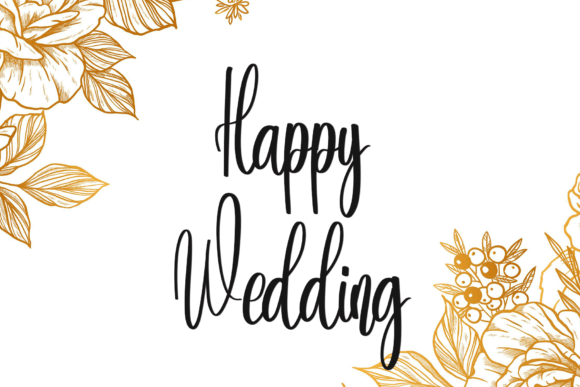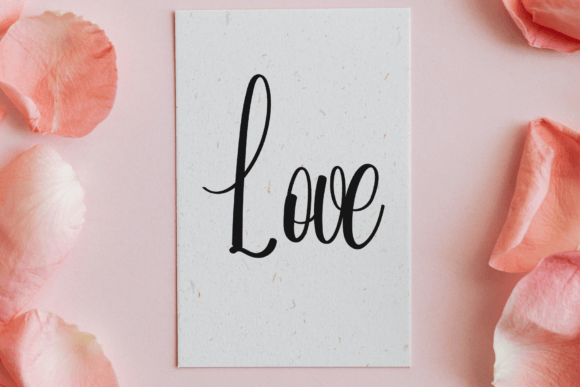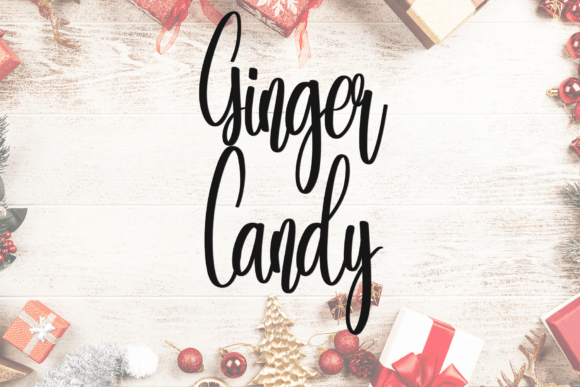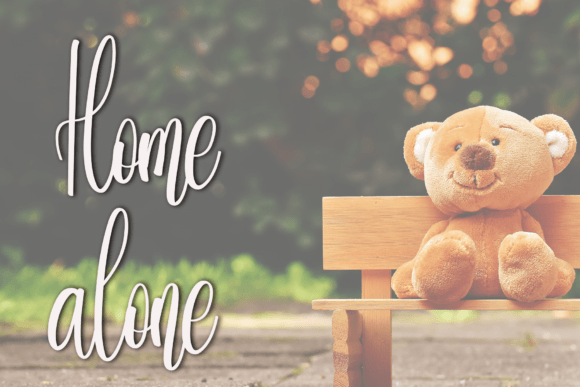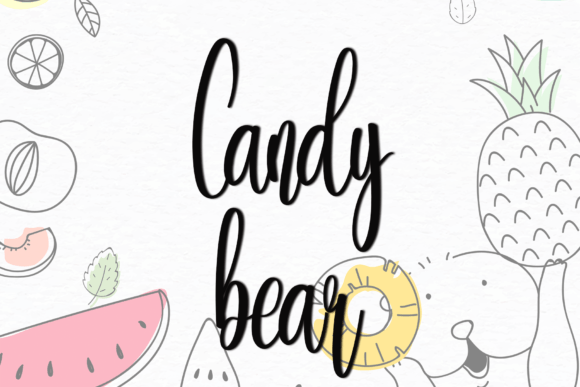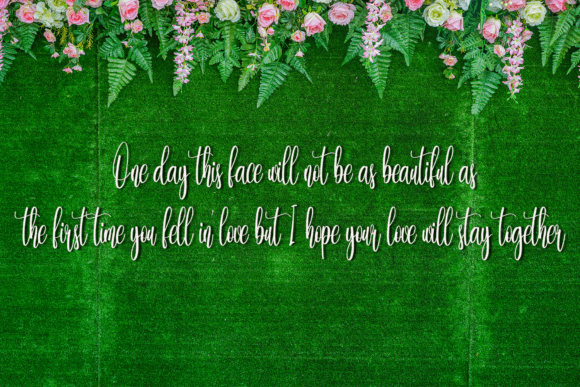
Introducing Decoration Font: Elevate Your Designs with a Cool, Simple, and Playful Handwritten Style
Are you tired of using the same old fonts in your designs? Look no further! Decoration Font is here to revolutionize your creative projects with its cool, simple, and playful handwritten style. This incredibly versatile font is perfect for designers and crafters who want to add a personal touch to their work. In this article, we’ll dive into the world of Decoration Font and explore how it can elevate your designs to new heights.
What is Decoration Font?
Decoration Font is a modern, handwritten font that exudes a sense of fun and playfulness. Its simple yet elegant design makes it perfect for a wide range of projects, from social media graphics and posters to invitations and branding materials. With its unique and eye-catching style, Decoration Font is sure to grab attention and leave a lasting impression.
The Benefits of Using Decoration Font
So, what makes Decoration Font so special? Here are just a few benefits of using this amazing font in your designs:
- Versatility: Decoration Font is incredibly versatile, making it perfect for a wide range of designs and projects. Whether you’re creating a social media graphic, a poster, or a branding material, this font will fit right in.
- Easy to Read: Despite its playful and handwritten style, Decoration Font is incredibly easy to read. This makes it perfect for designs that require a lot of text, such as blog posts, articles, and more.
- Unique and Eye-Catching: Decoration Font has a unique and eye-catching style that will set your designs apart from the crowd. Its playful and fun design makes it perfect for projects that require a bit of personality.
How to Use Decoration Font in Your Designs
Using Decoration Font in your designs is incredibly easy. Here are a few tips to get you started:
- Pair it with Other Fonts: Decoration Font pairs perfectly with other fonts, making it easy to create stunning and unique designs. Try pairing it with a bold font for a contrasting look or with a similar handwritten font for a cohesive look.
- Experiment with Colors: Decoration Font looks amazing in a variety of colors. Experiment with different colors and combinations to find the perfect look for your design.
- Use it for Headings and Titles: Decoration Font is perfect for headings and titles. Use it to add a touch of personality to your designs and make them stand out.
Who Can Benefit from Using Decoration Font?
Decoration Font is perfect for a wide range of designers and crafters, including:
- Graphic Designers: Graphic designers can use Decoration Font to add a personal touch to their designs and make them stand out.
- Social Media Managers: Social media managers can use Decoration Font to create stunning social media graphics that grab attention and engage their audience.
- Crafters: Crafters can use Decoration Font to add a personal touch to their DIY projects, such as handmade cards, invitations, and more.
In conclusion, Decoration Font is a cool, simple, and playful handwritten font that can elevate your designs to new heights. Its versatility, ease of use, and unique style make it perfect for a wide range of projects and designers. Whether you’re a graphic designer, social media manager, or crafter, Decoration Font is sure to become a staple in your design toolkit. So why wait? Add Decoration Font to your favorite creative ideas and notice how it makes them come alive!
With Decoration Font, the possibilities are endless. So go ahead, get creative, and see what amazing designs you can come up with!